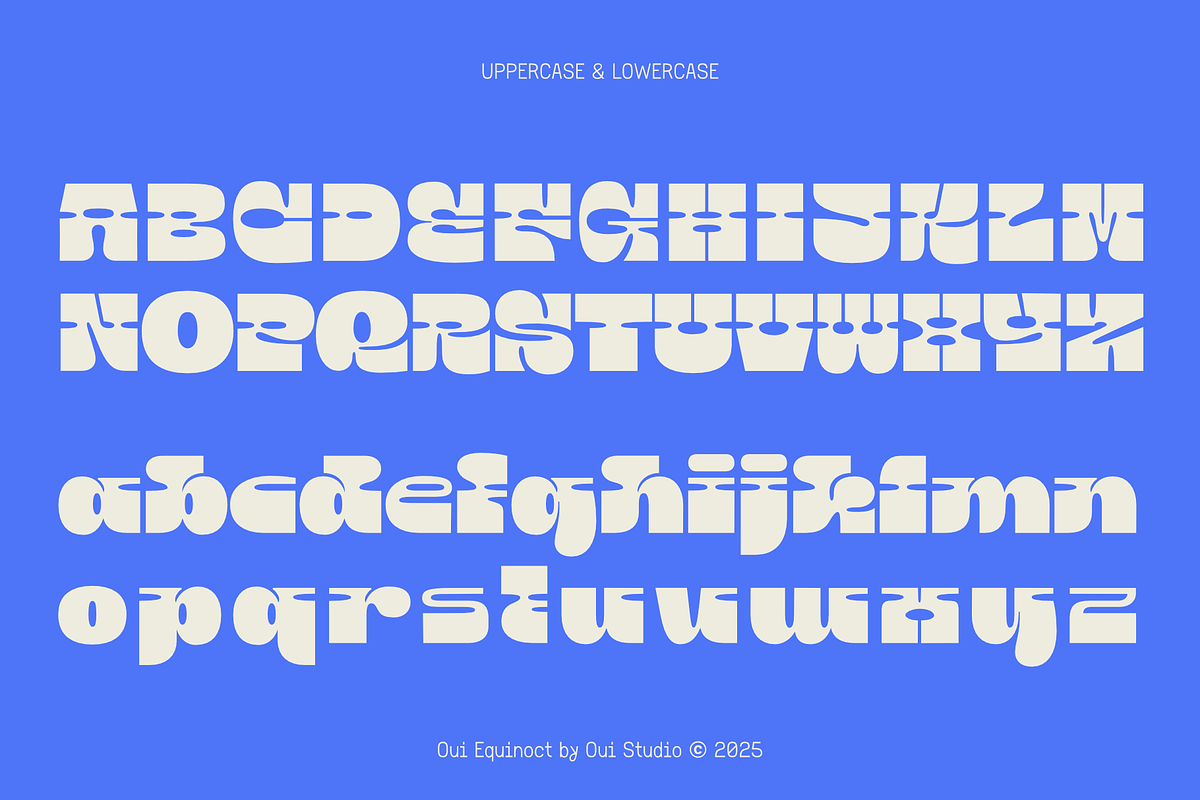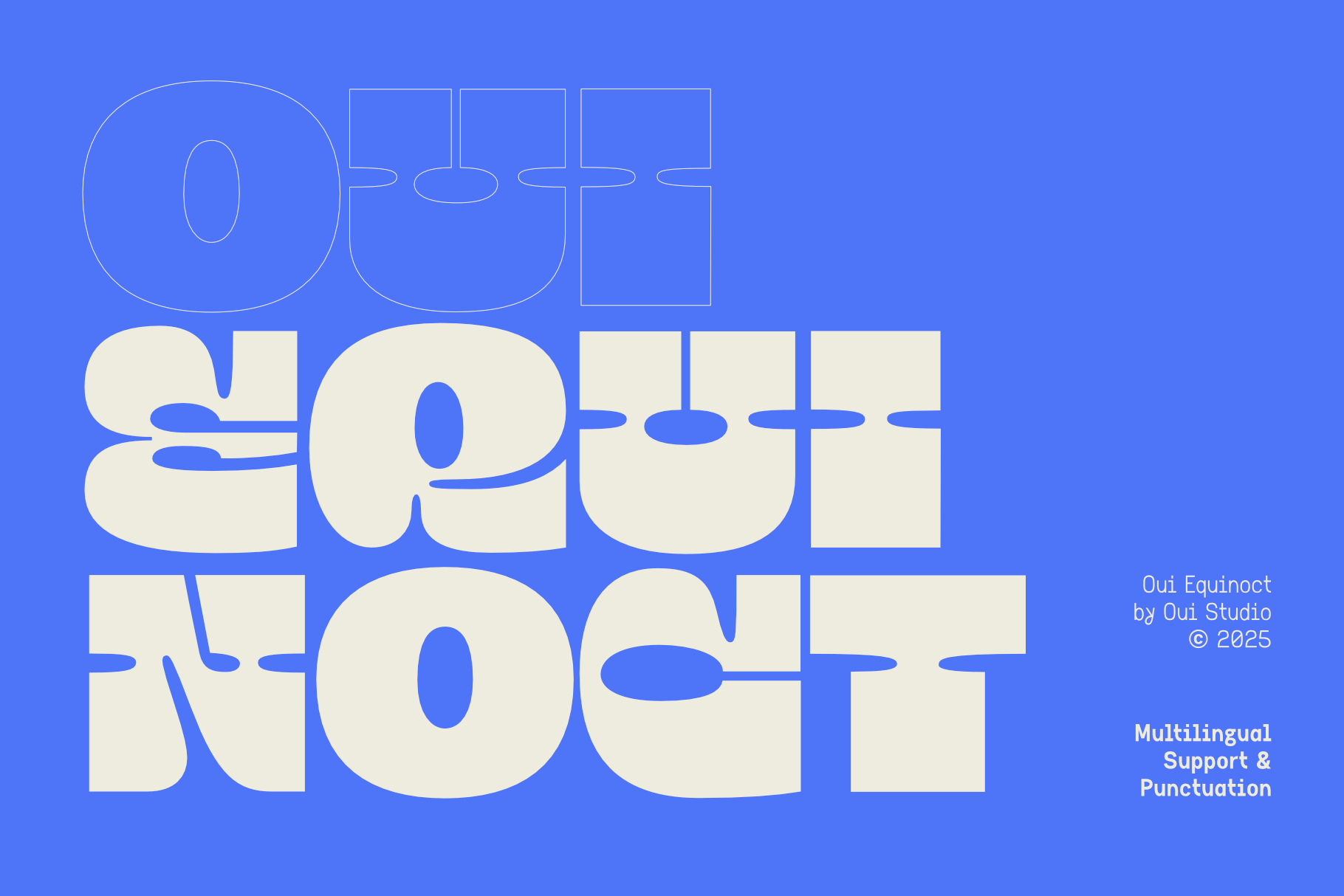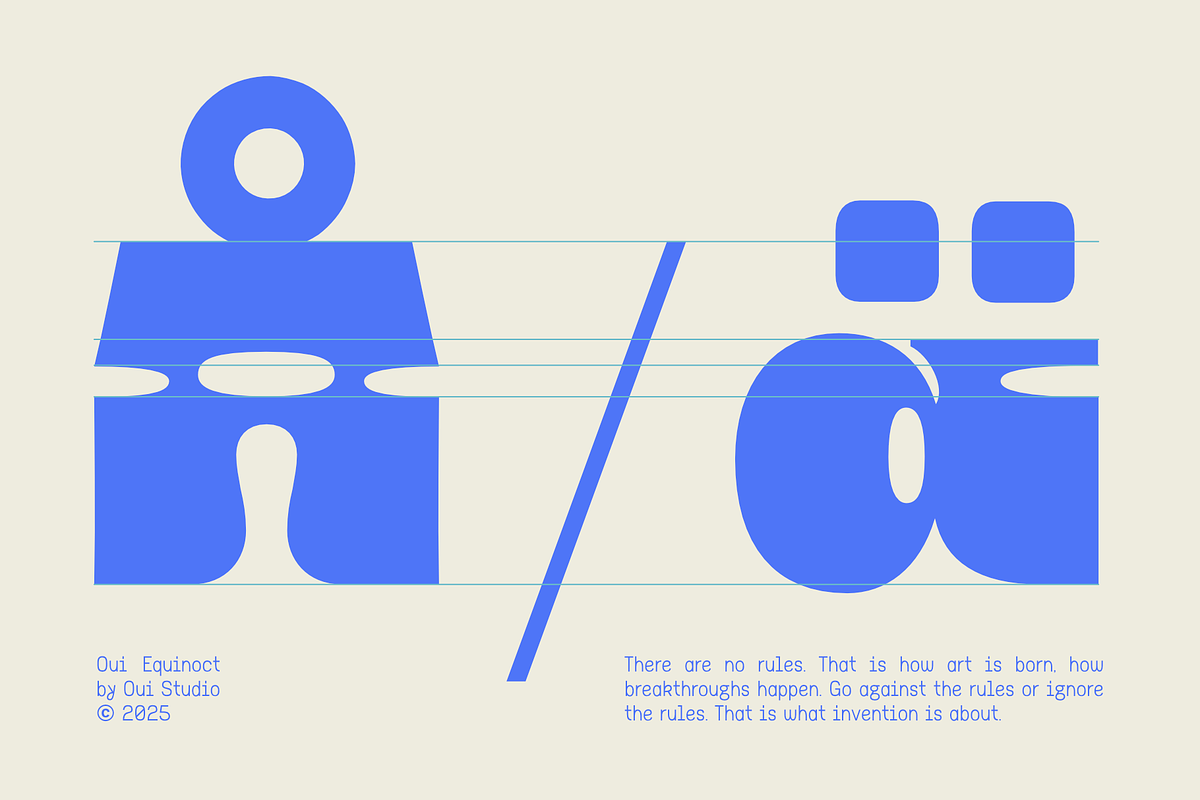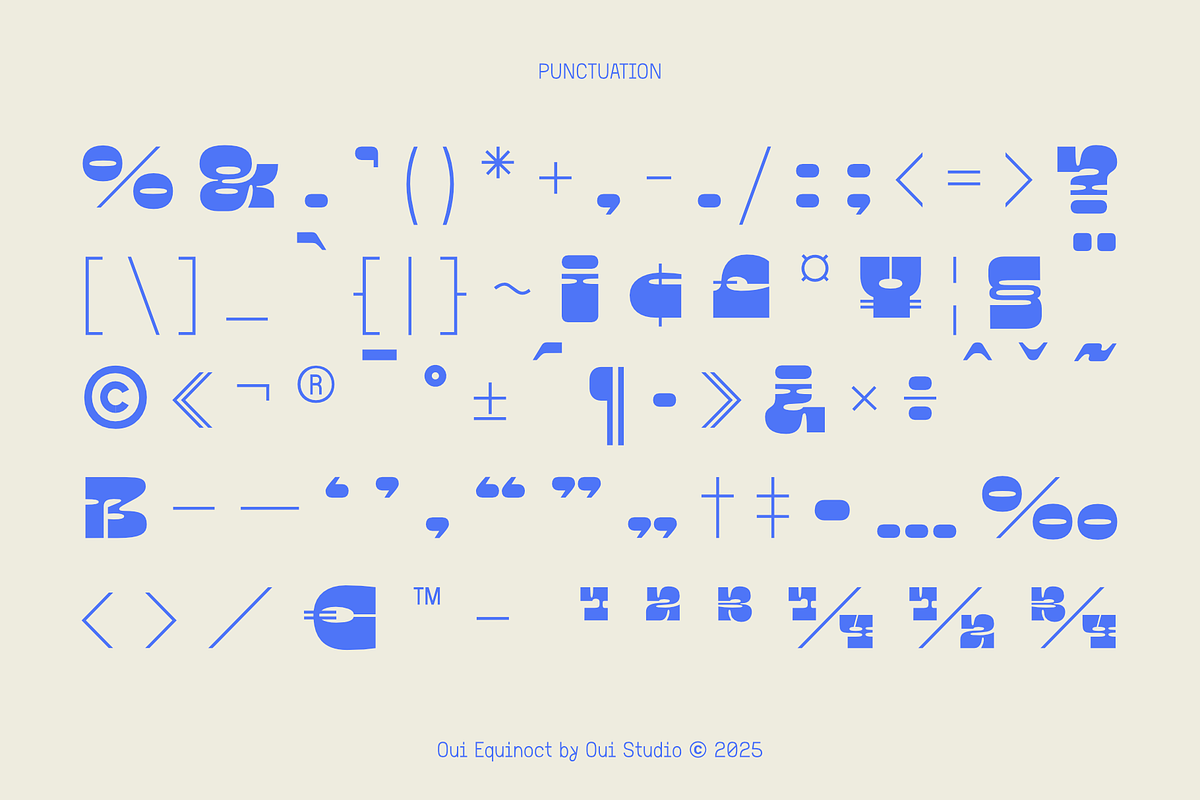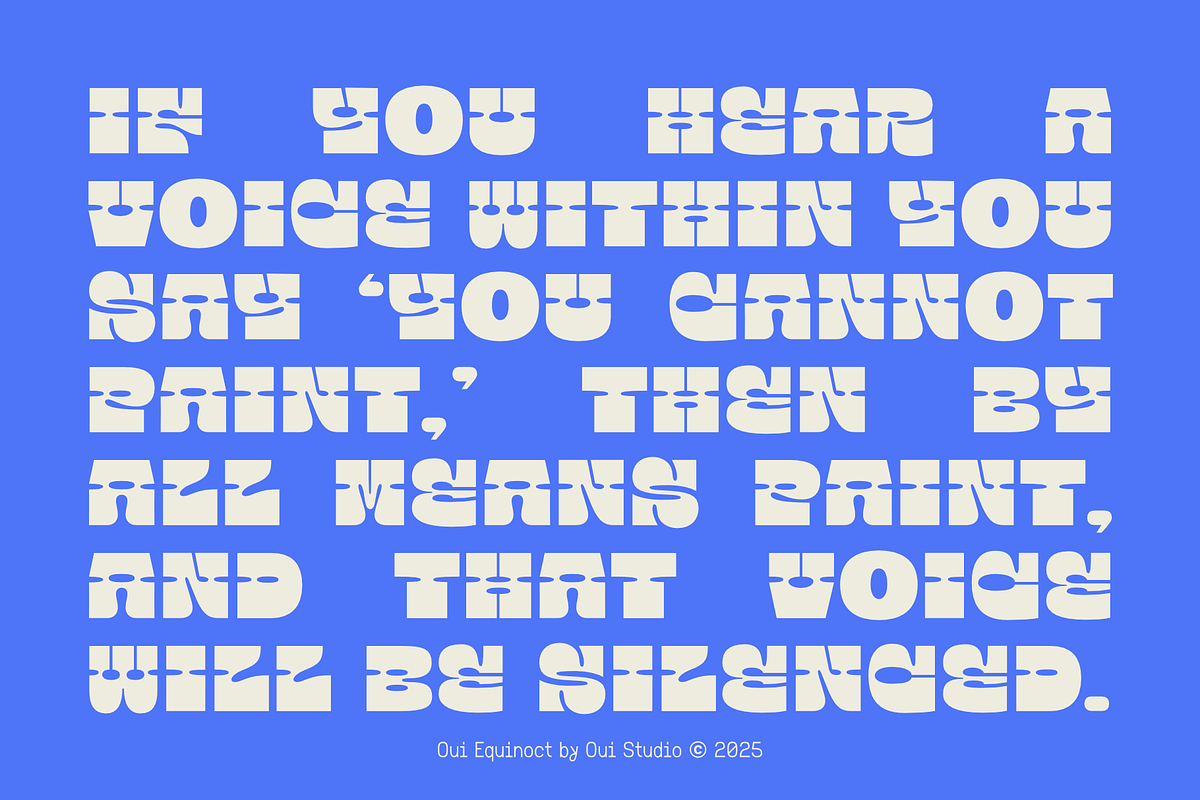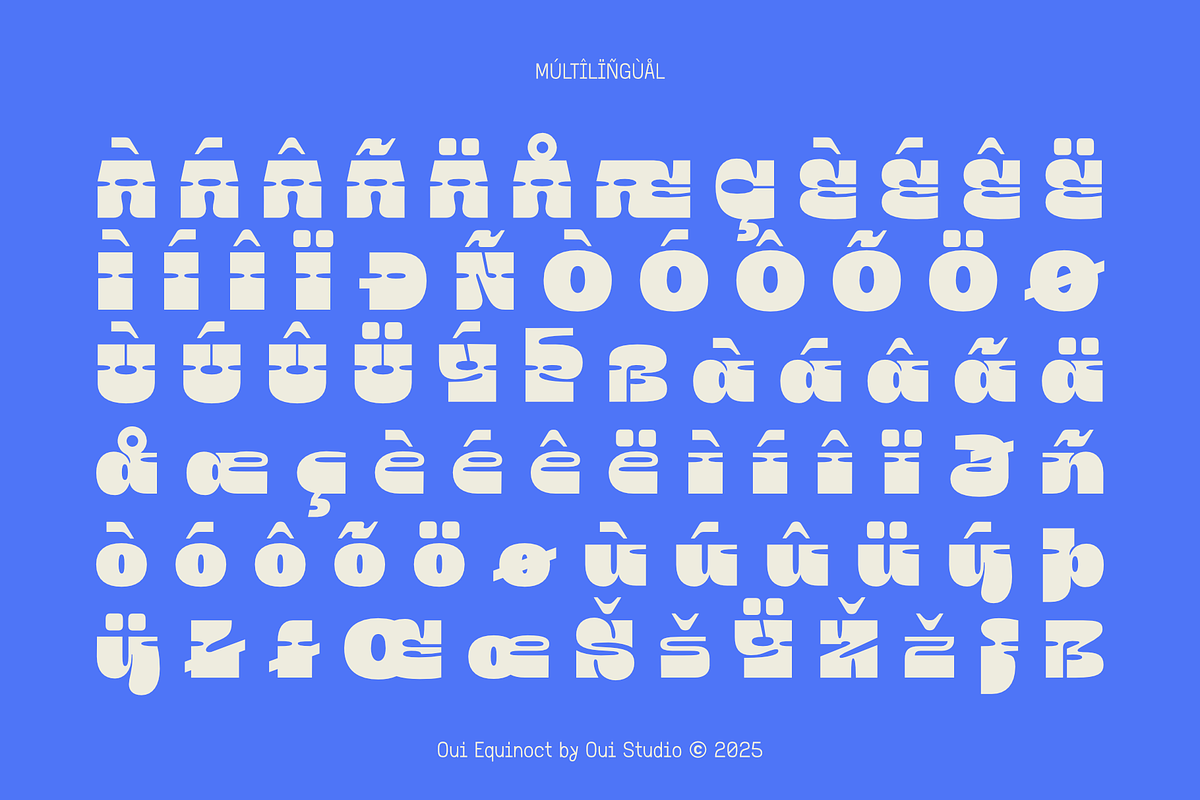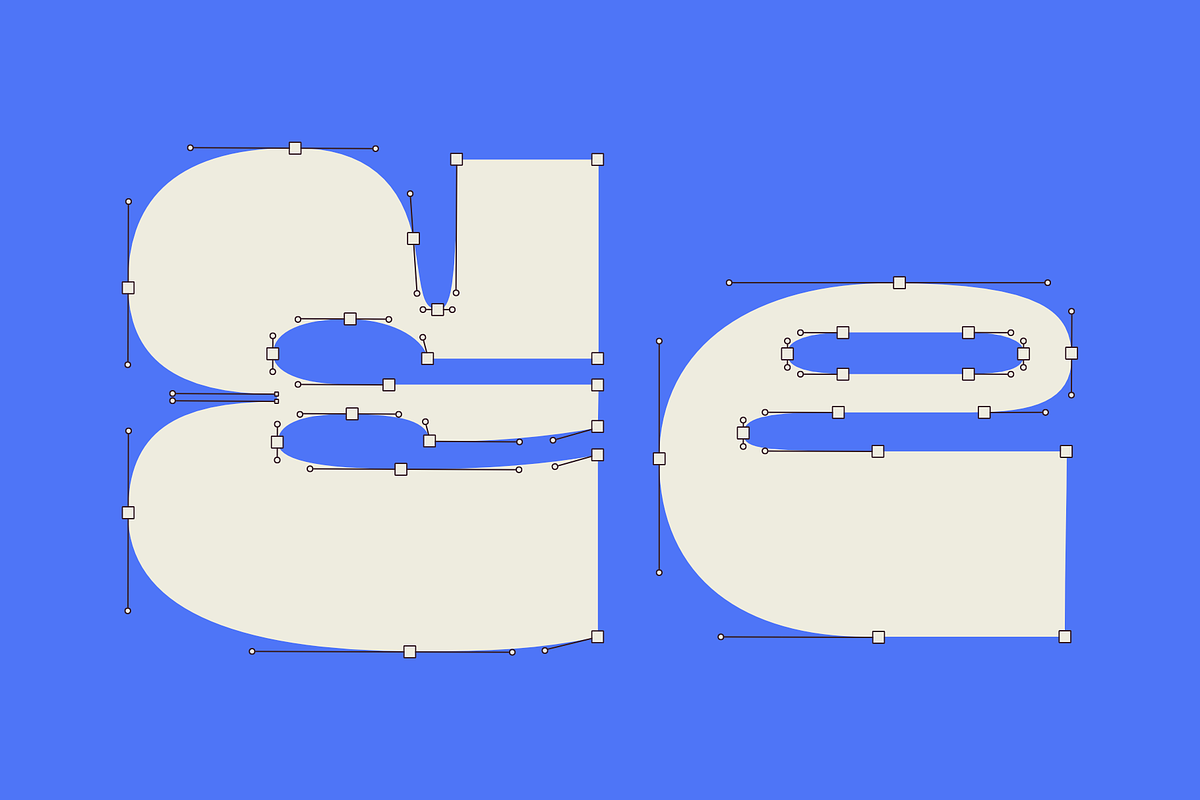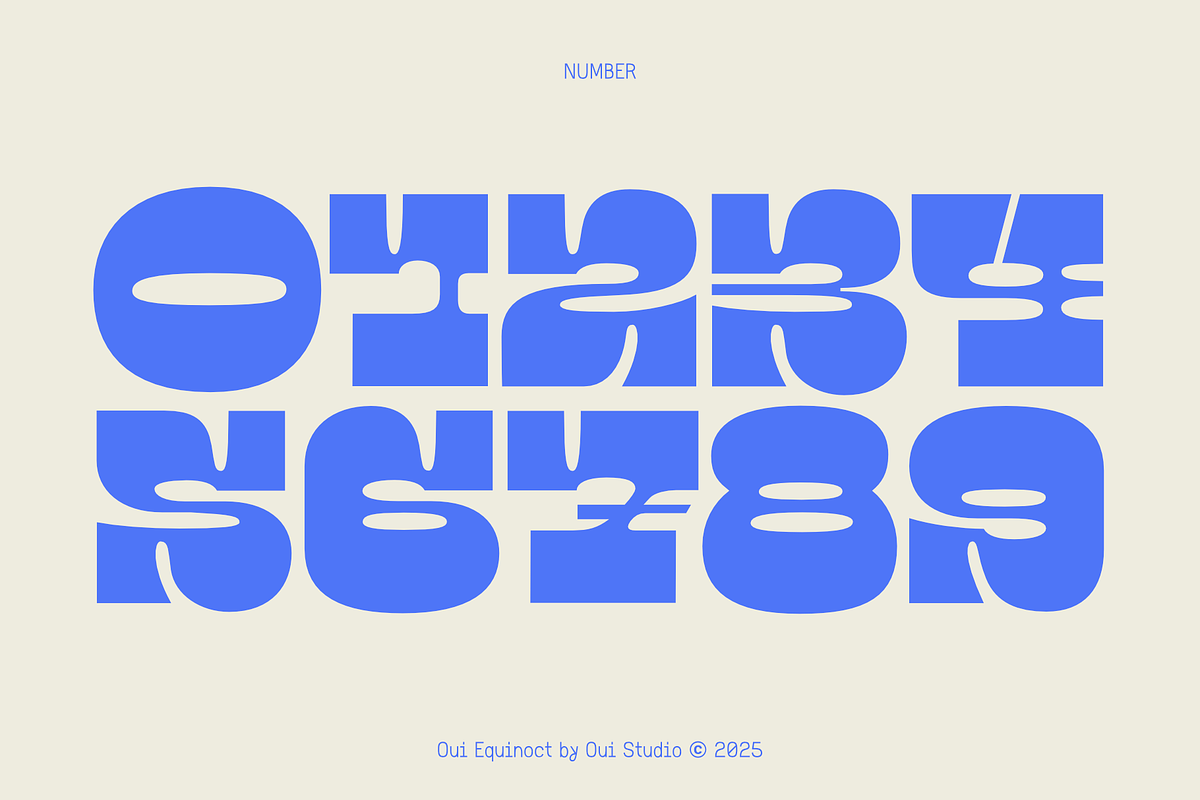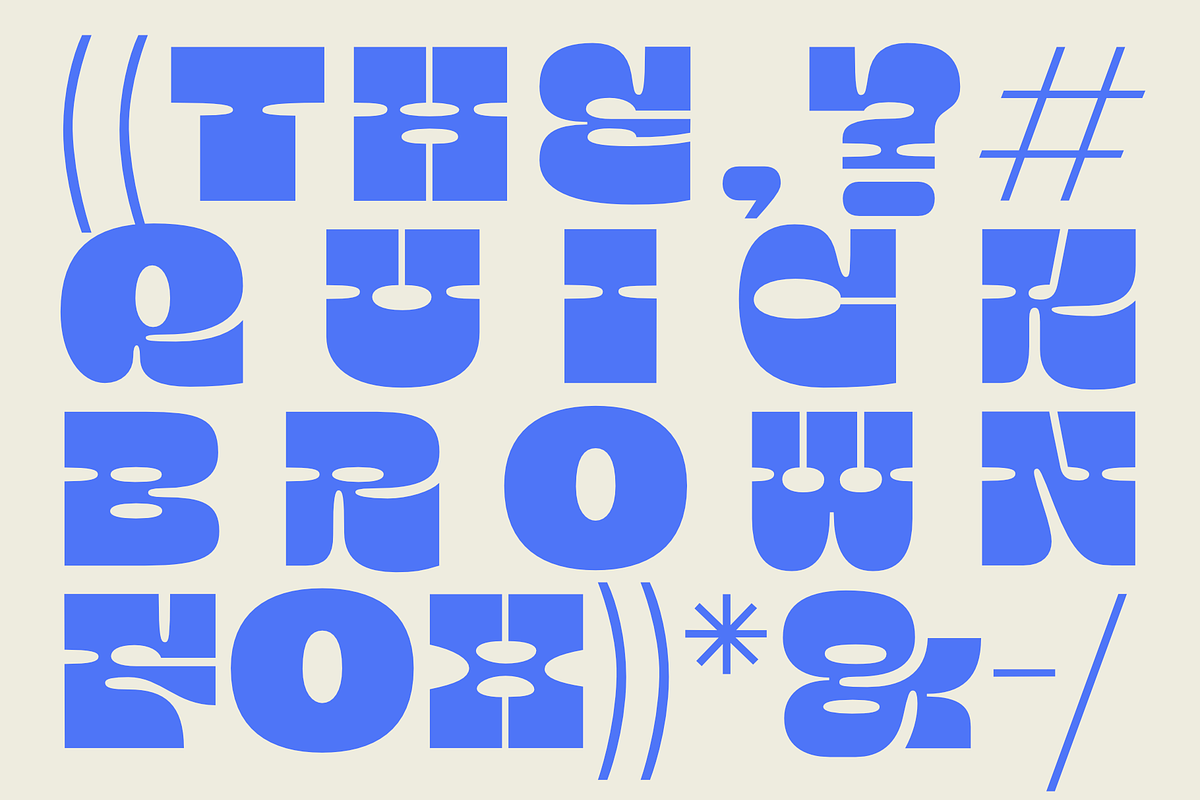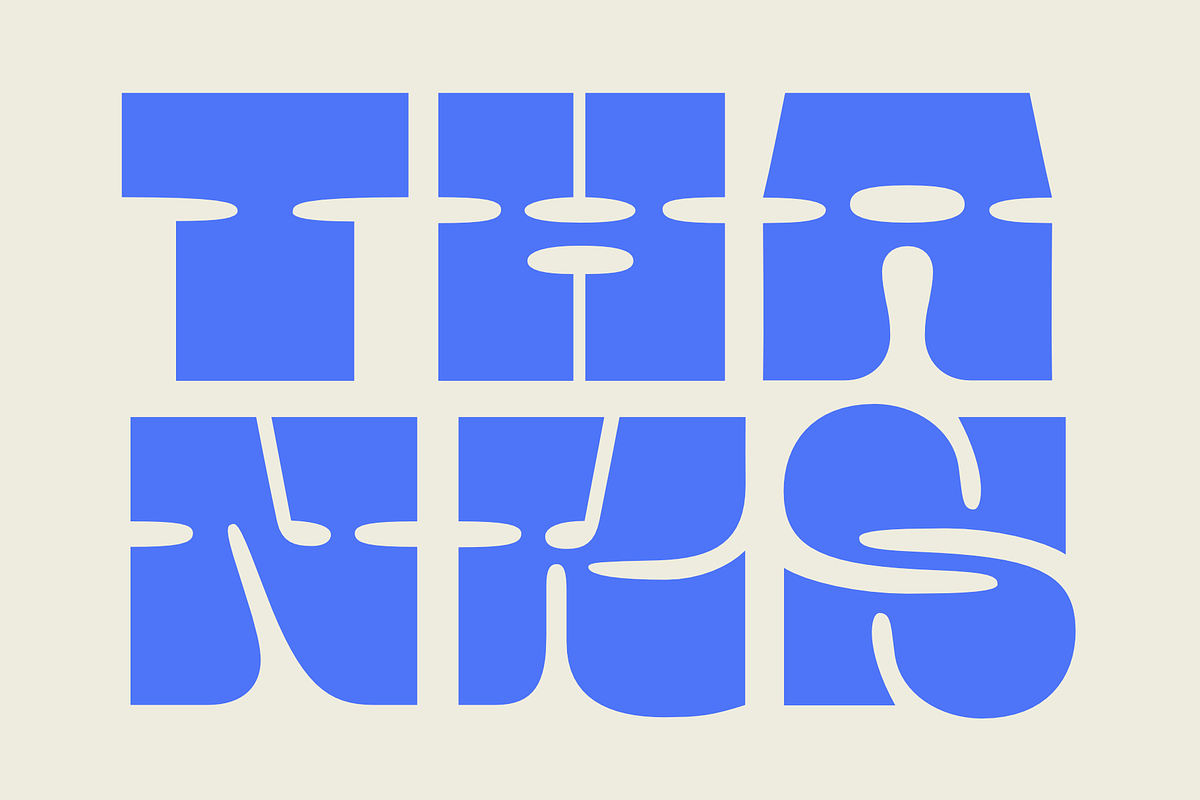
Oui Equinoct Decorative Font
Oui Equinoct is a bold experimental display font that plays with contrast, rhythm, and symmetry. Its geometric letterforms feature distinctive horizontal cuts that create a sense of motion and duality — almost as if each character balances light and shadow. The result is a futuristic yet groovy aesthetic that feels both nostalgic and forward-looking. Oui Equinoct captures the spirit of vintage sci-fi titles and 70s modular typography, reimagined for today’s creative scene.
Perfect for album covers, editorial design, posters, and branding, Oui Equinoct instantly commands attention. Its striking forms work beautifully in large-scale layouts, giving any design a confident and artistic edge. Whether you’re aiming for a retro-futuristic mood or bold typographic experimentation, Oui Equinoct delivers a unique typographic experience that stands out and inspires.